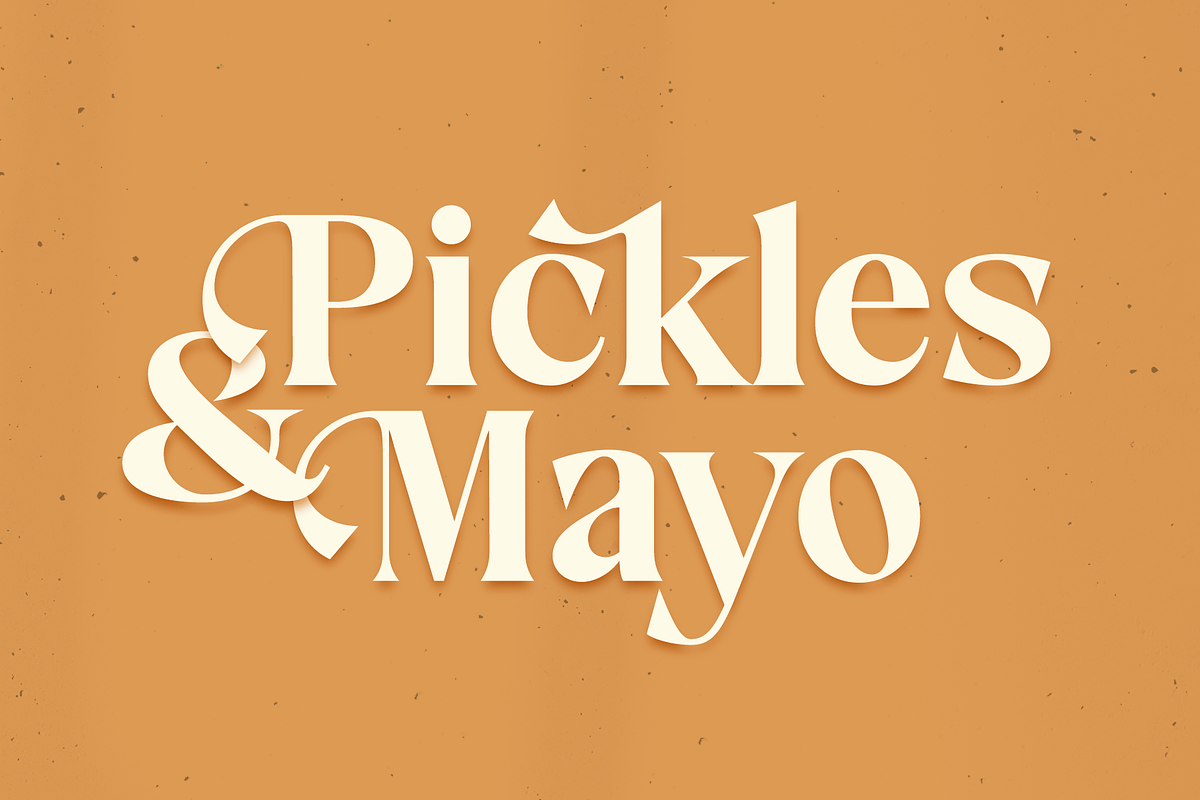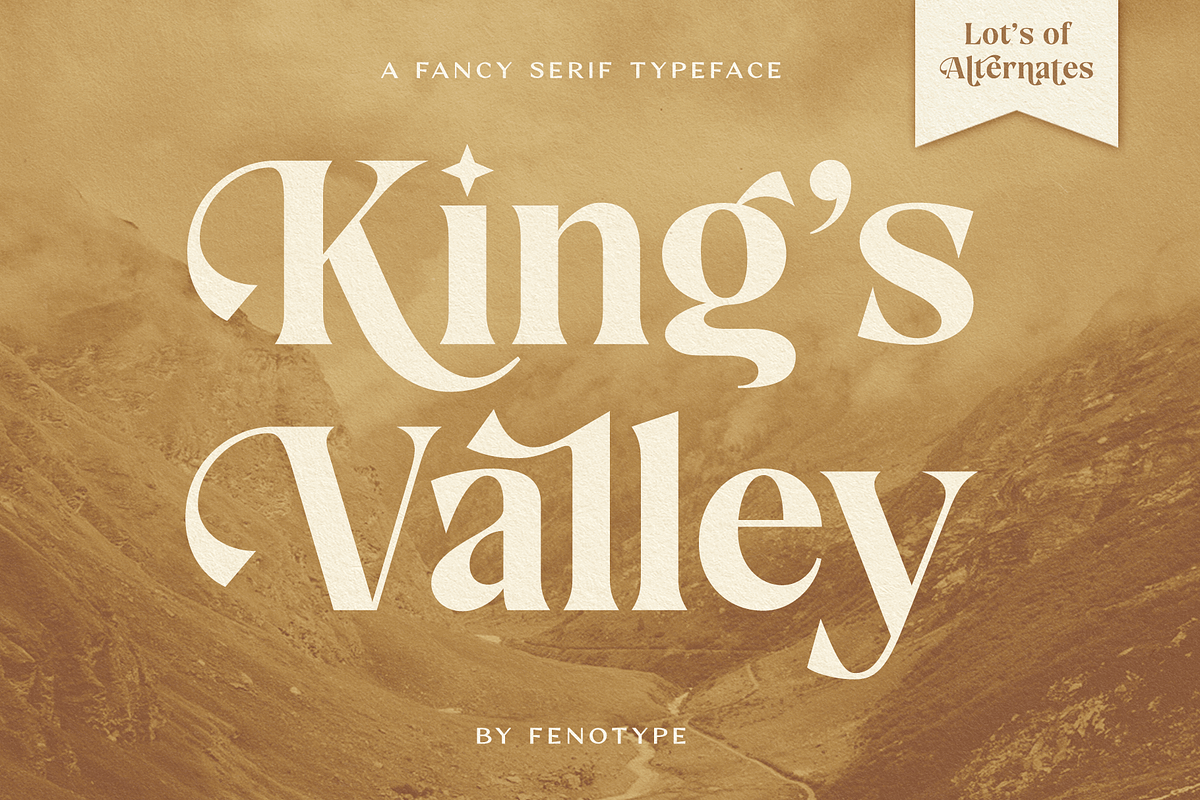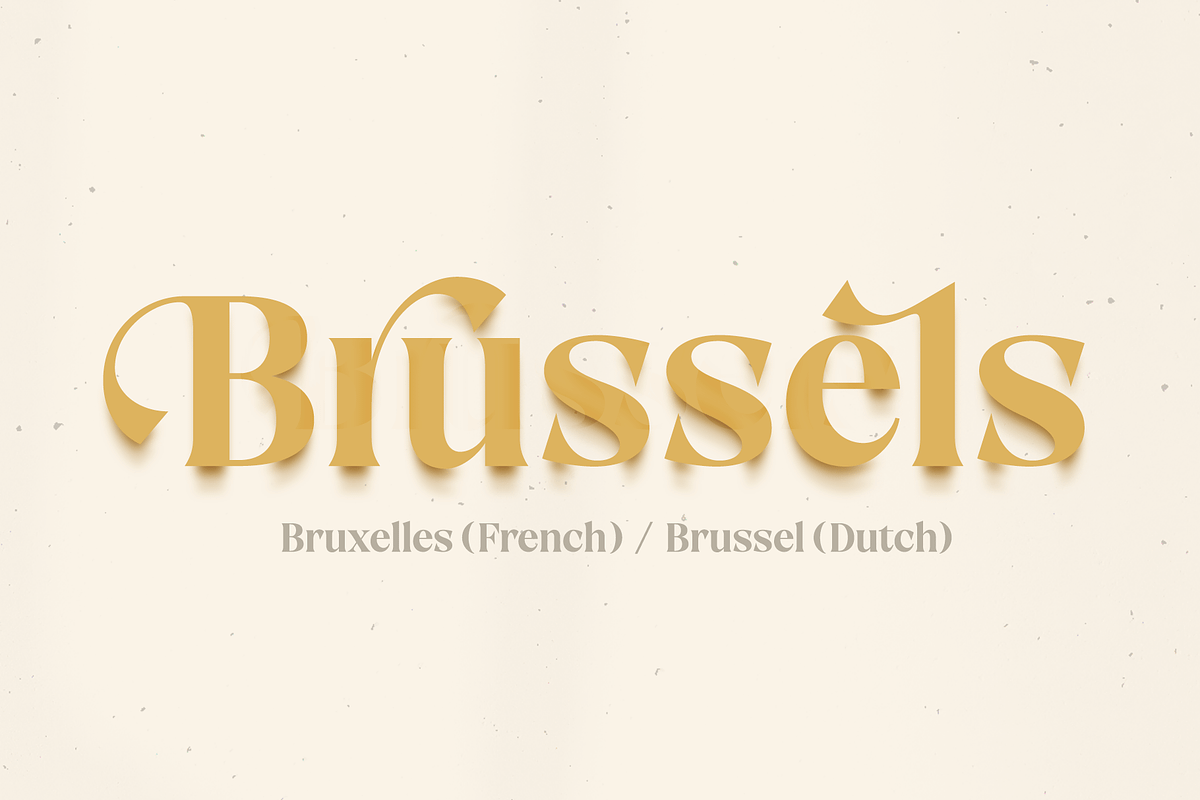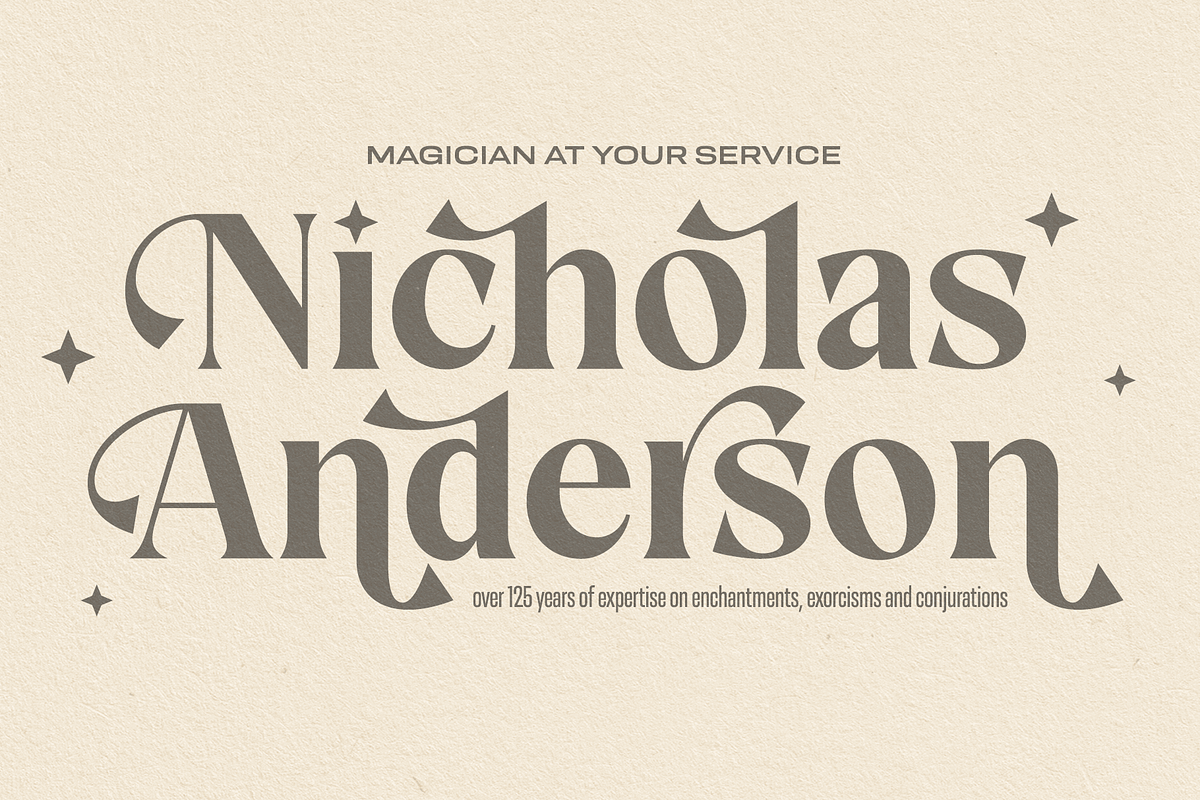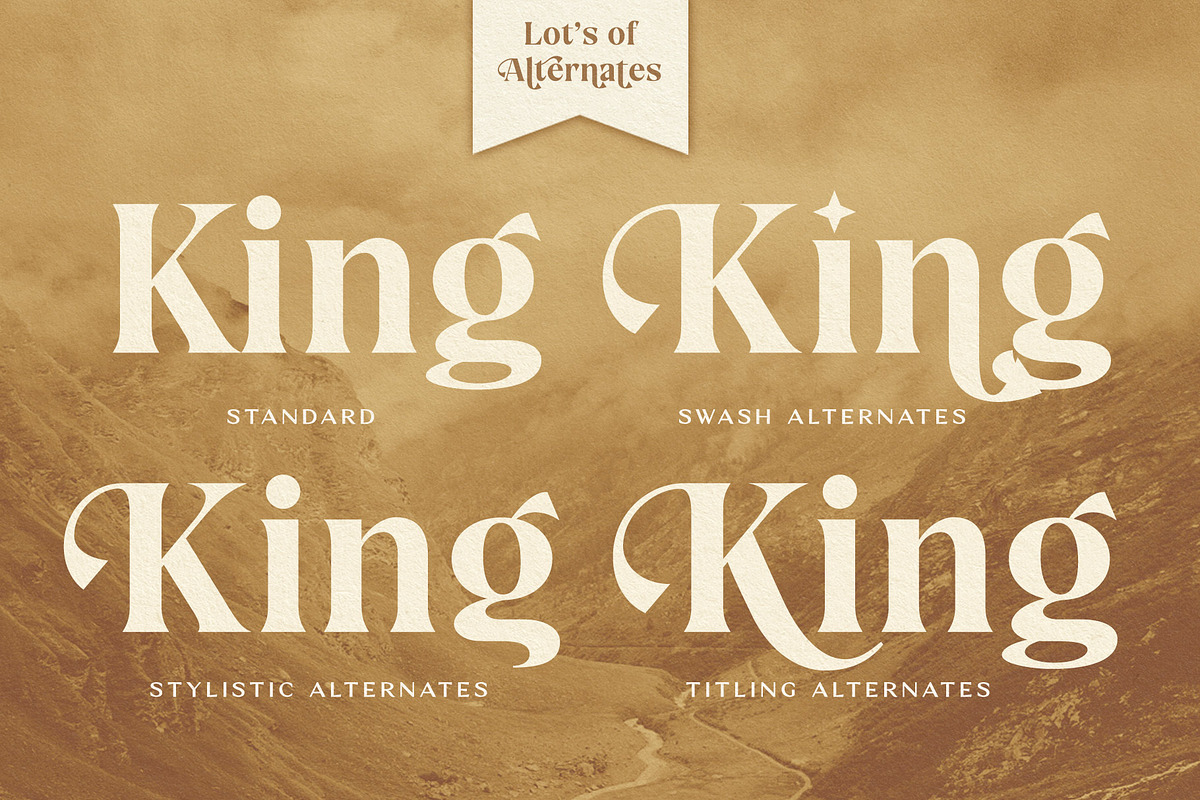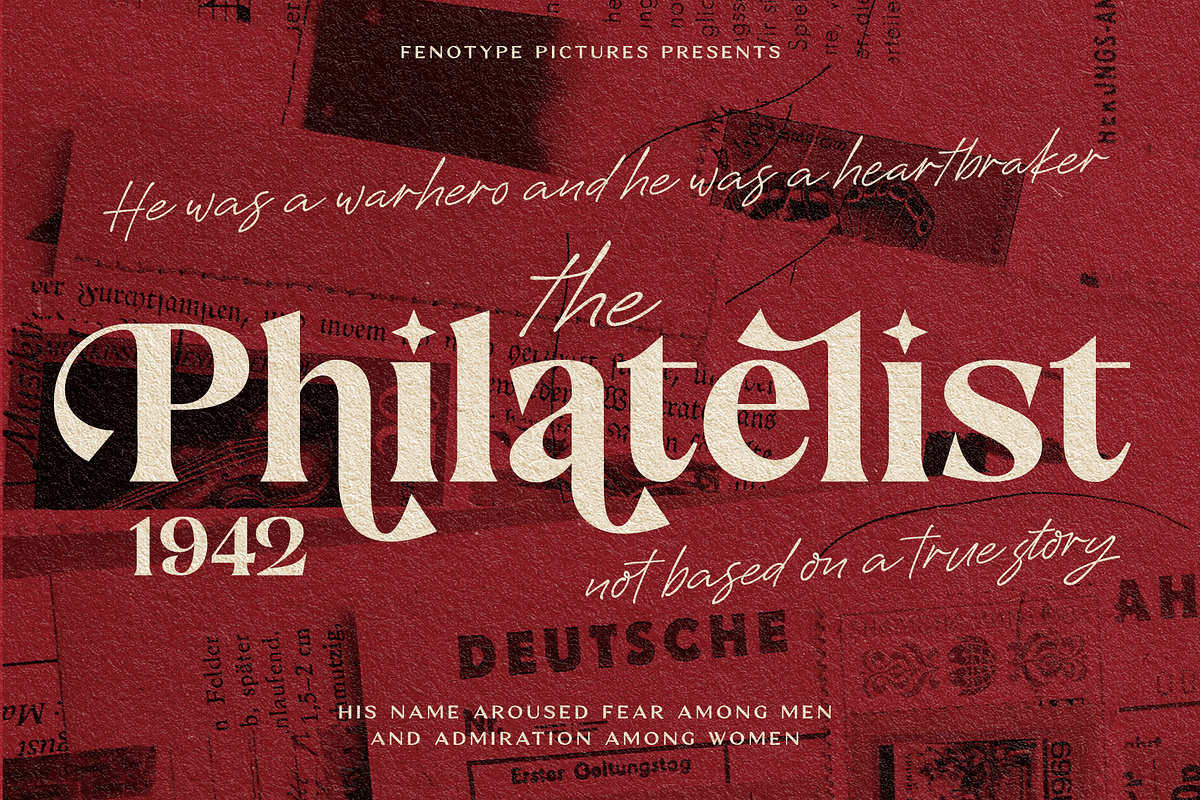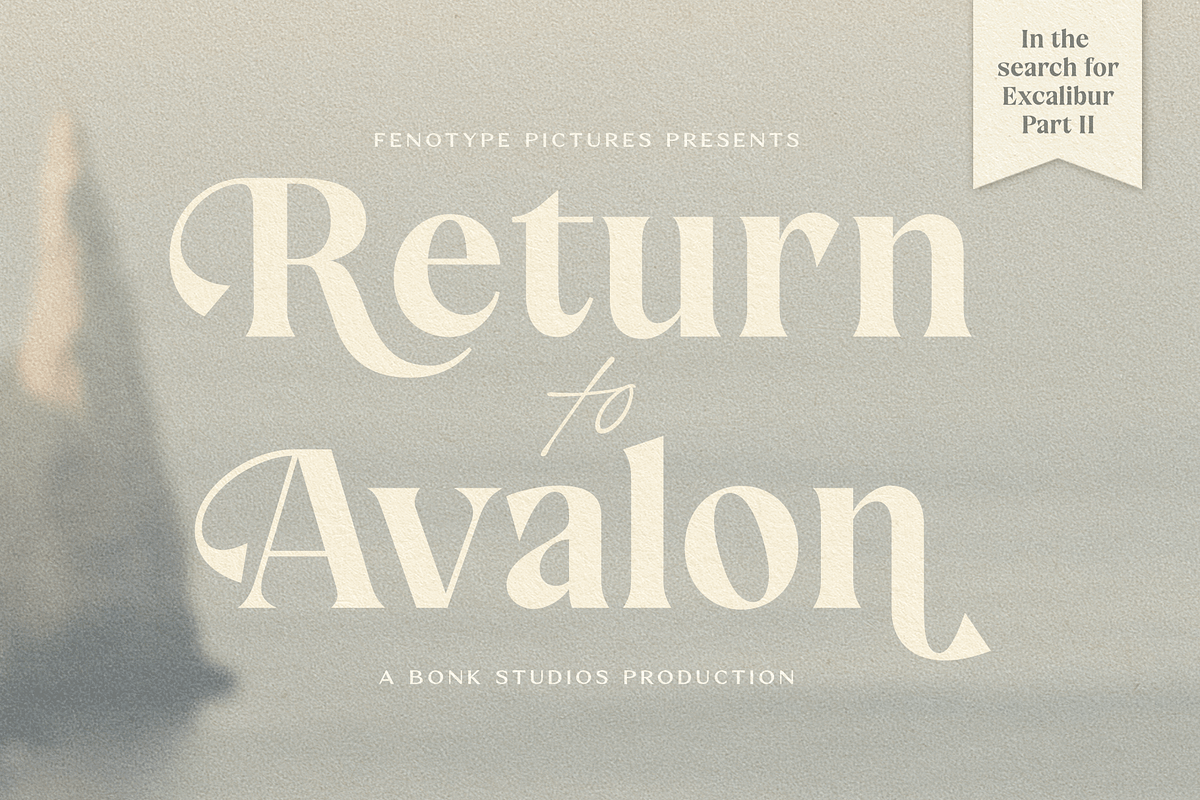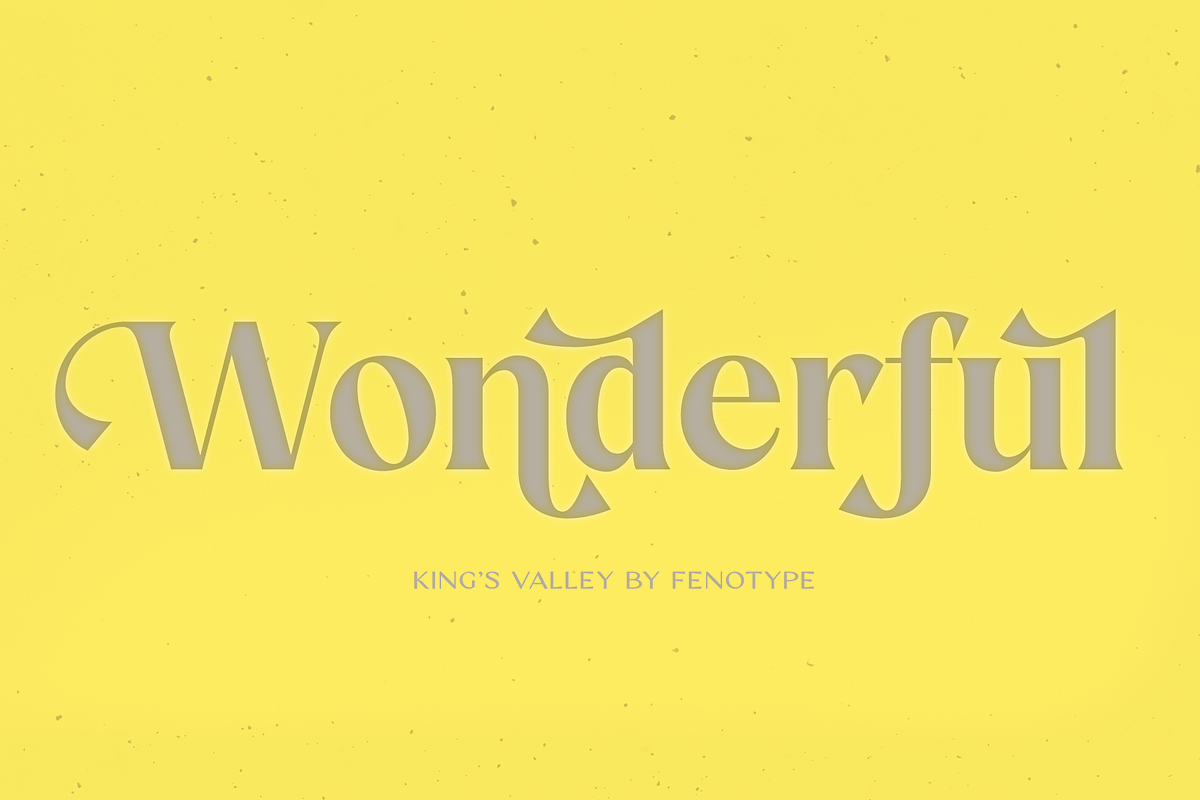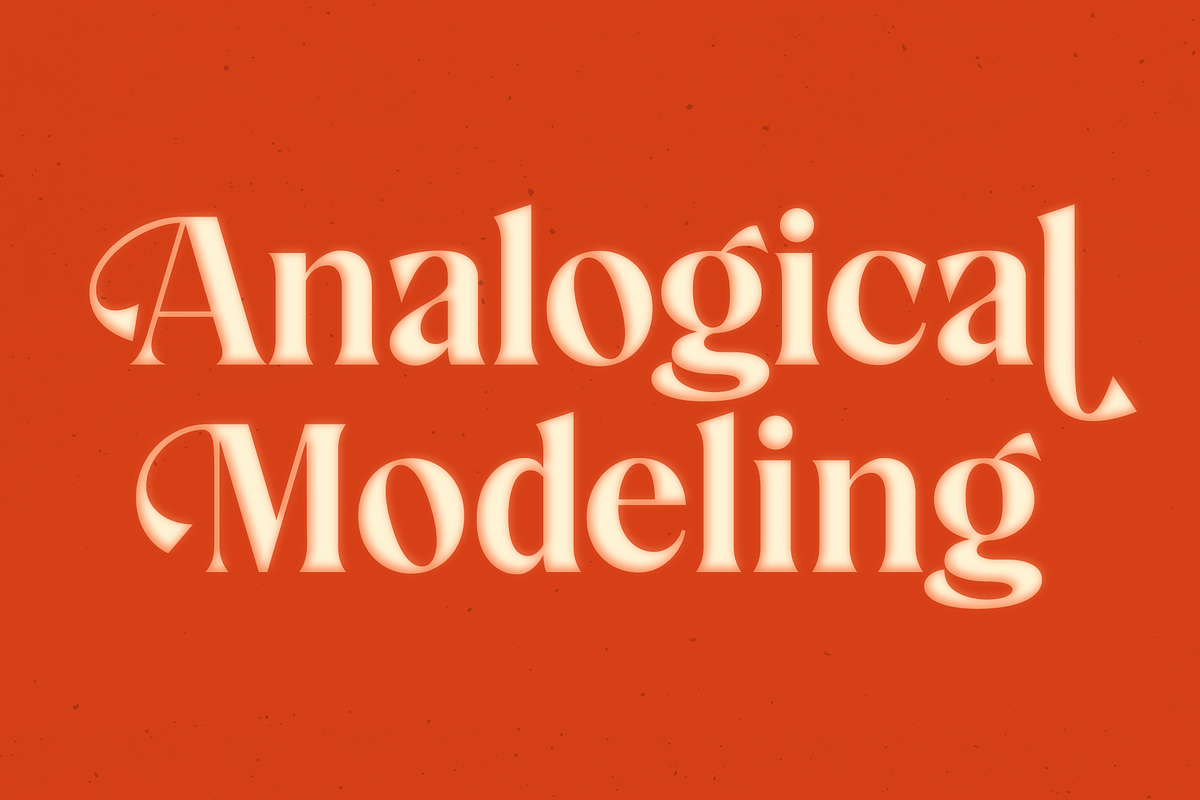
King’s Valley is an elegant serif typeface with plenty of features. It’s equipped with Standard Ligatures and Swash, Stylistic and Titling Alternates for more showy designs. Access the alternates from OpenType panel in any OpenType savvy program, or seek them from Glyphs / Character -window.